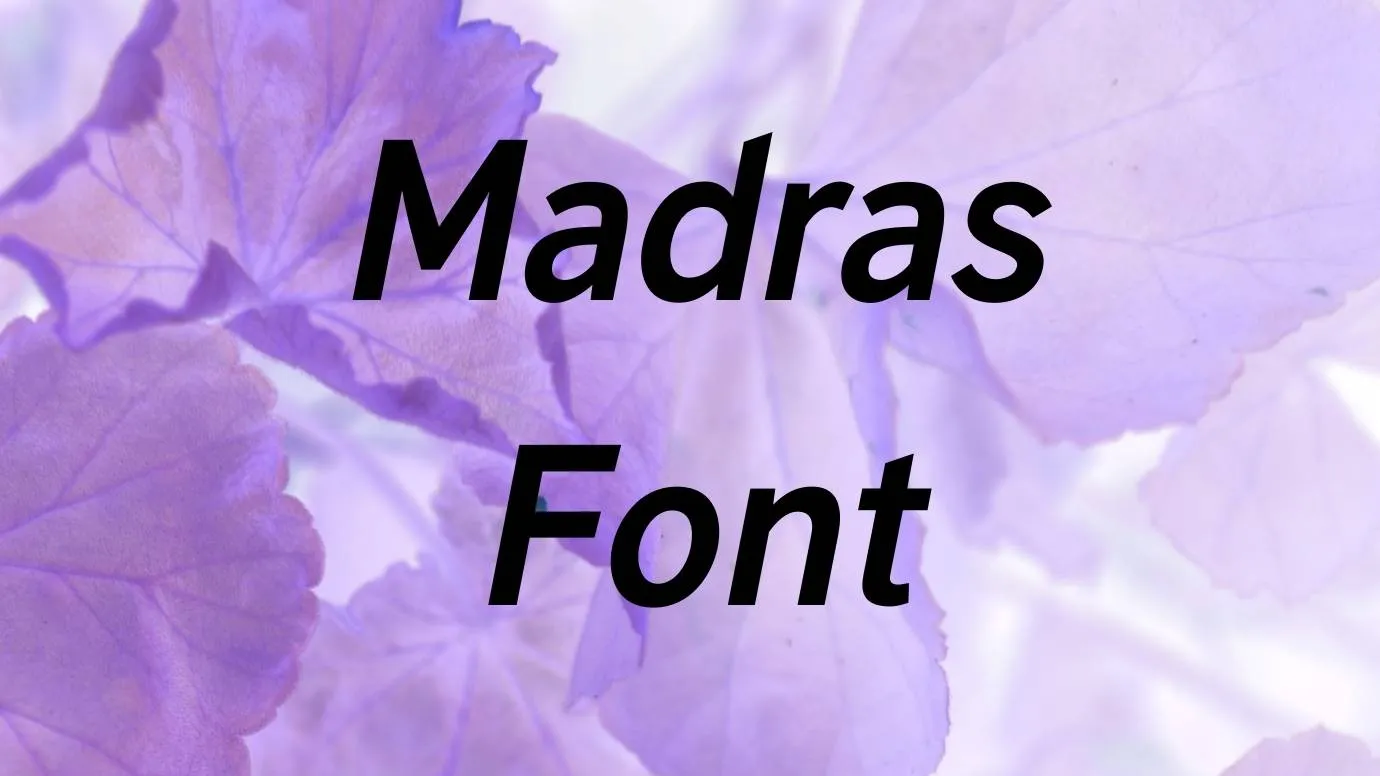
Madras Font
Madras Font Family is a Sans-serif typeface that was designed by Thomas Gillett. This classy typeface was designed for the purpose to meet quickly other different popular Sans-Serif typefaces. This awesome Font has a simple, clean design that makes it easy to read.
This tremendous font family comes in very famous 7 weights. Each of its weights has its own matching italics. Some of its weights are available in regular, bold, and italic. This glorious font was developed by Space-Green this feature of this font makes it famous all over the world. This versatile Font can be used for both formal and informal occasions.
Features of Madras Font
• It is perfect for books covers, postcards, Trailers, themes, and other long texts. It is also used for website design, templates, and blog posts.
• Almost all higher brands used this fascinating font family for many designs such as creating a website, making posters, banners, hats, walls murals, and many more.
• You can also use this amazing font for different designs like homeware designs, product packaging, invitations cards, and greeting cards.
This cute font family is developed by Thomas Gillett. It belongs to the Sans-Serif typeface.
This stylish typeface is used anywhere all over the world. YOU can use this font for creating a website, making posters, banners, hats, walls murals, and many more.